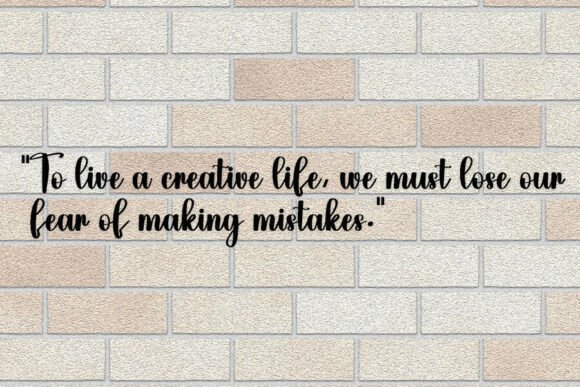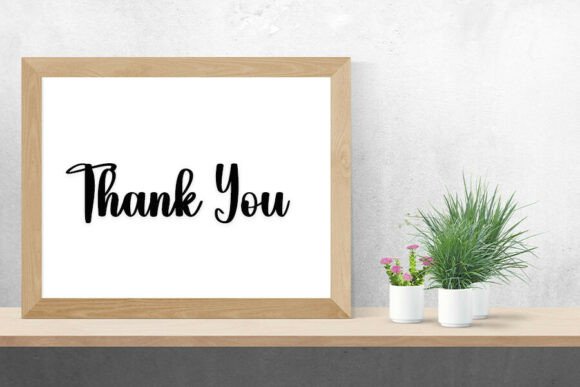
Introduction to Decorative Font
Have you ever found yourself in a creative zone, surrounded by endless possibilities, and suddenly, a spark of inspiration strikes? For me, it was the moment I stumbled upon a beautiful, handwritten font that added a touch of magic to my design. That moment sparked an obsession with the Decorative Font, and I’m excited to share its charm with you.
As a designer, I know how valuable it is to have a reliable design resource that can elevate your creative project from ordinary to extraordinary. The Decorative Font is just that – a high-quality, free download that can be used for a variety of design ideas, from branding and marketing promotion to wedding invitations and greeting cards. With its transparent background, this font is versatile and easy to use, making it a must-have in your design arsenal.
Key Features of Decorative Font
- High-quality design with a transparent background, making it perfect for creative projects that require a touch of elegance.
- Designed with a unique, ornate style that adds a touch of sophistication to any design project.
- Perfect for use as a design resource in various creative projects, including invitations, posters, and social media graphics.
Honest Review: Decorative Font
As a designer, I’m always on the lookout for high-quality design resources that can elevate my creative projects. Recently, I stumbled upon the Decorative Font, which has been a game-changer for my designs. ✨
One of the standout features of this font is its versatility. It’s perfect for adding a touch of elegance to any project, from invitations to wedding designs. The font is available for free download, making it an excellent addition to any designer’s arsenal.
Here are some of the key features that I love about the Decorative Font:
- Transparent background, making it easy to customize
- Works well in a variety of contexts, from formal to informal designs
- ⚠️ Limited character set, which may not be suitable for longer texts
Overall, I’m thoroughly impressed with the Decorative Font. Its high-quality design and versatility make it an excellent addition to any designer’s toolkit. With its free download and transparent background, it’s a must-have resource for any creative project.
Decorative Font: A Design Resource for Creative Projects
To get the most out of your decorative font, use it on a transparent background to create a sense of depth and dimension. You can also experiment with different font sizes and styles to add visual interest to your design.
Decorative fonts are commonly used in creative projects such as wedding invitations, party decorations, and social media graphics. They can also be used to add a touch of elegance to business presentations and marketing materials.
Alternatives to Decorative Font